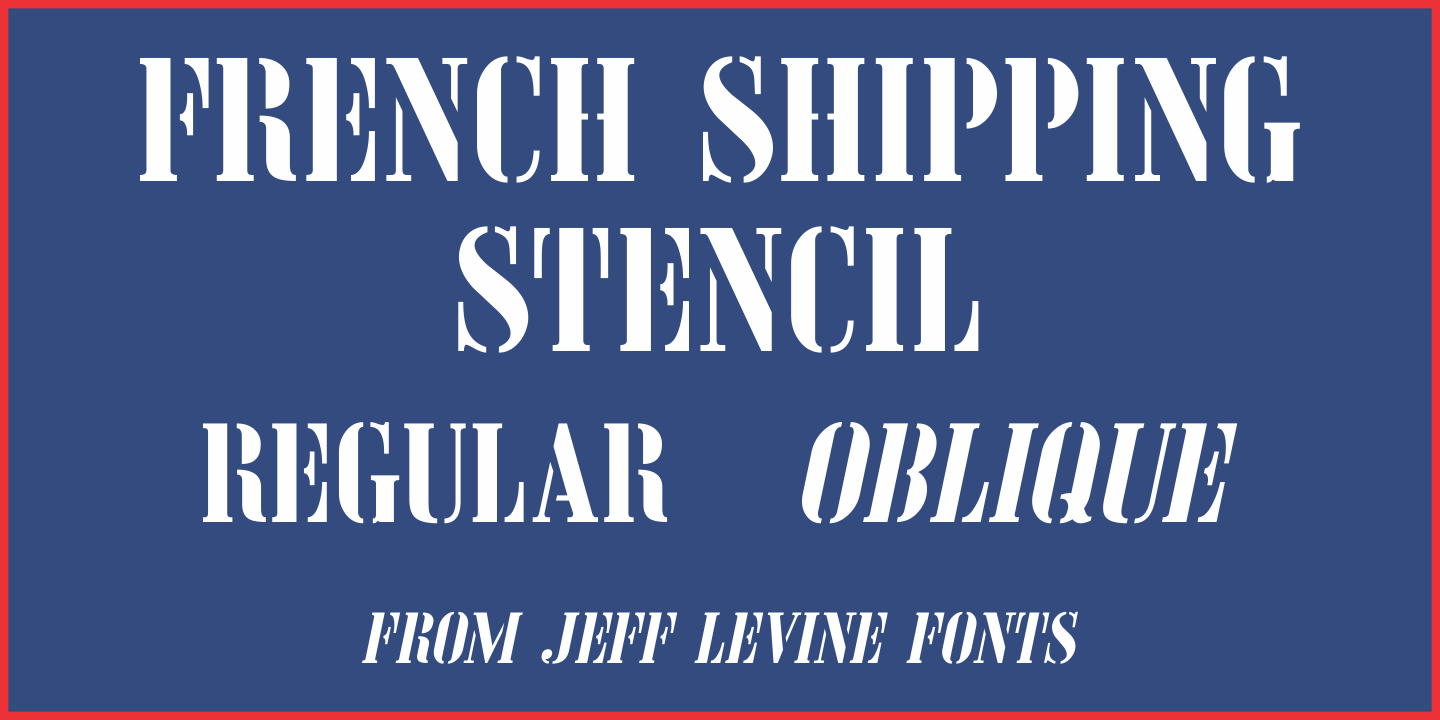
French Shipping Stencil JNL Font Free Download is a bold, industrial-style typeface inspired by vintage shipping and cargo stencils. With its rugged, utilitarian look, this font is perfect for posters, packaging, signage, military-themed designs, and branding projects that need a strong, authentic touch. Its classic stencil cuts give it an instantly recognizable character, adding a sense of history and functionality to any creative work.
Featuring uppercase letters, numbers, and essential punctuation, French Shipping Stencil JNL Font Free Download offers versatility for both print and digital applications. Whether you’re creating labels, display headlines, or promotional materials, this font delivers a powerful, no-nonsense aesthetic while maintaining readability. Its bold design makes it ideal for high-impact visuals that stand out in any setting.
Add vintage industrial charm to your designs with French Shipping Stencil JNL Font Free Download. This unique stencil font brings authenticity and strength, helping your projects achieve a bold, eye-catching look with historical flair.